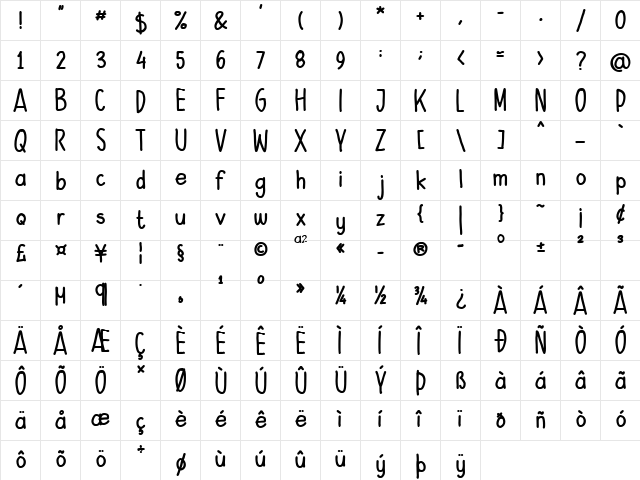
Rizkia Aisha Regular
Design Context for Rizkia Aisha Typeface
Rizkia Aisha offers clean, dependable letterforms without strong stylistic allegiance, making it a practical choice for designers who need flexibility.